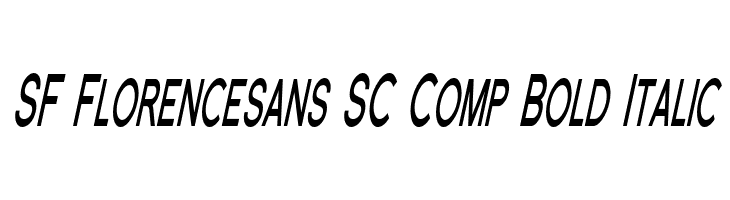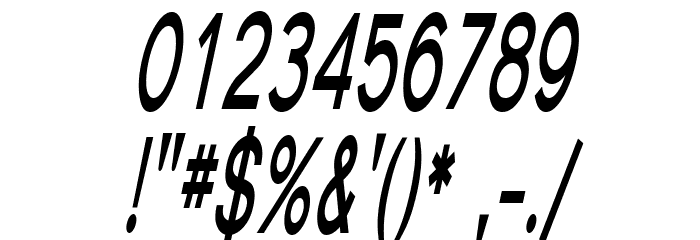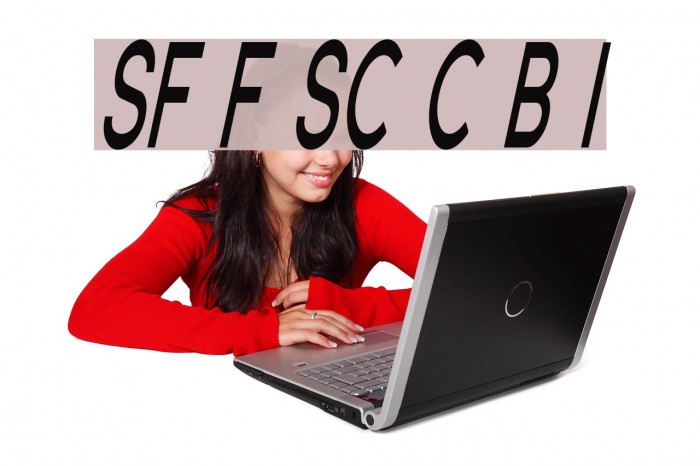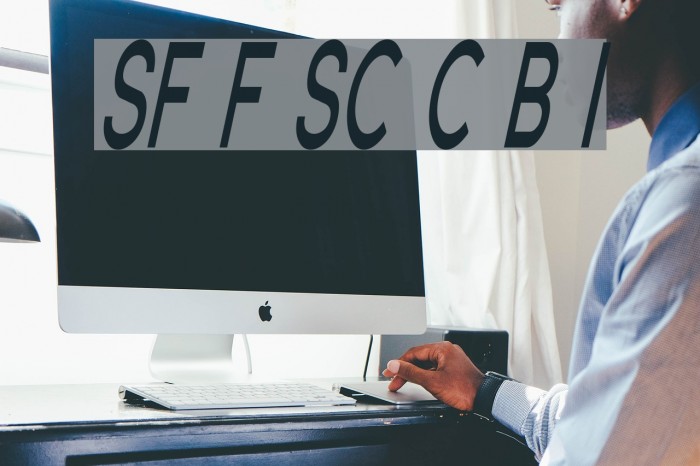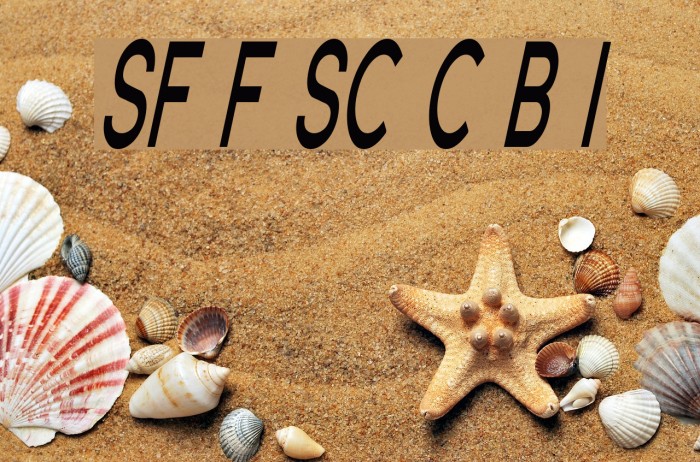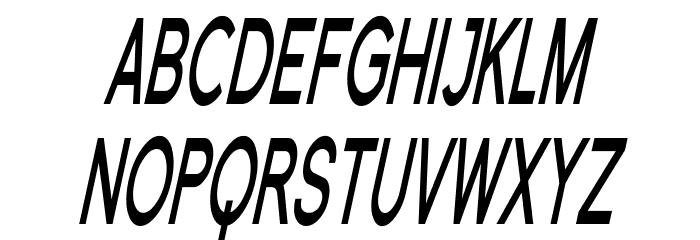
SF Florencesans SC Comp Bold Italic Font
SF Florencesans SC Comp Bold Italic Description
This font features a bold and italicized style with a condensed width, giving it a strong and dynamic appearance. The characters are slanted, enhancing the sense of motion and urgency. The strokes are thick and consistent, providing a uniform and robust look. The uppercase and lowercase letters maintain a cohesive design, with sharp angles and clean lines. The numerals and special characters are equally bold, ensuring readability and impact. This font's condensed nature allows for efficient use of space, making it suitable for various design applications.
A bold, italicized, and condensed font with a dynamic and robust appearance from Uncategorized fonts.
- Proposed Projects: Ideal for headlines, posters, branding, and any design requiring a strong visual impact.